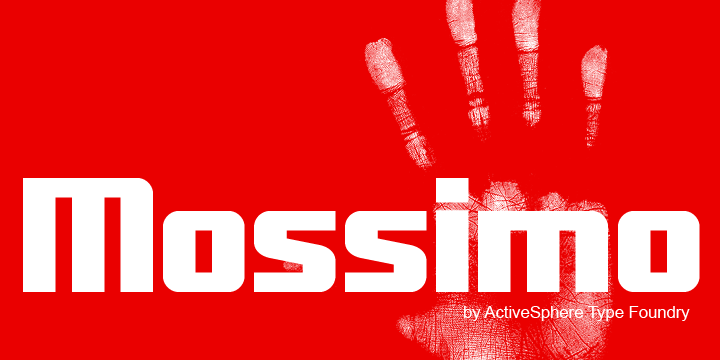
Mossimo Font Free Download provides designers with dynamic typography that combines athletic energy with contemporary functionality for sports-focused design applications. This commercial font requires purchase for business use, but you can download it for free for testing purposes to evaluate its distinctive athletic characteristics in your creative projects.
Mossimo Font demonstrates remarkable versatility across numerous design applications including sports team branding, athletic apparel marketing, fitness center communications, sporting goods packaging, competition event promotions, athletic training materials, sports media graphics, and performance-oriented web interfaces. Its energetic character makes it particularly effective for projects requiring motivational impact while maintaining professional credibility, ensuring your designs convey athletic excellence and competitive spirit across both digital platforms and dynamic print materials.
What makes Mossimo Font truly exciting is its innovative approach to typography that perfectly captures the essence of athletic performance and competitive drive through carefully engineered letterforms. The font features precisely crafted characters that incorporate subtle sports-inspired elements and dynamic proportions that create striking motivational impact while preserving optimal communication effectiveness. Its distinctive character construction combines athletic inspiration with modern functionality, creating text that feels both physically powerful and professionally reliable. The font's optimized spacing and energetic character relationships ensure superior performance across various sports applications while maintaining the characteristic vigor that defines its athletic personality.
Mossimo Font offers a comprehensive type family designed to support diverse sports and fitness design requirements. The family typically includes light, regular, medium, bold, and black weights, along with corresponding italic variations that provide complete flexibility for dynamic athletic typography compositions. Many versions feature extended character sets with sports symbols, competitive ornaments, and specialized glyphs that enhance authentic athletic aesthetic applications.
The Mossimo Font Free Download represents outstanding value for designers working on sports-focused and fitness-oriented projects across multiple sectors. Whether developing athletic team identity, creating sports equipment communications, designing fitness facility materials, or producing competitive event content, this font delivers consistent energy and memorable athletic appeal. Its sports characteristics make it particularly effective for industries including athletic apparel, fitness services, sporting goods, and competitive events sectors seeking to communicate performance excellence and athletic achievement.
For maximum effectiveness, Mossimo Font combines powerfully with vibrant color schemes and dynamic design elements that reinforce its athletic message. Its energetic presence excels in headline applications while maintaining excellent performance in sports marketing contexts. The font's athletic sophistication and competitive appeal make it an essential tool for creating motivational communications that resonate with audiences pursuing sports excellence and fitness achievements.